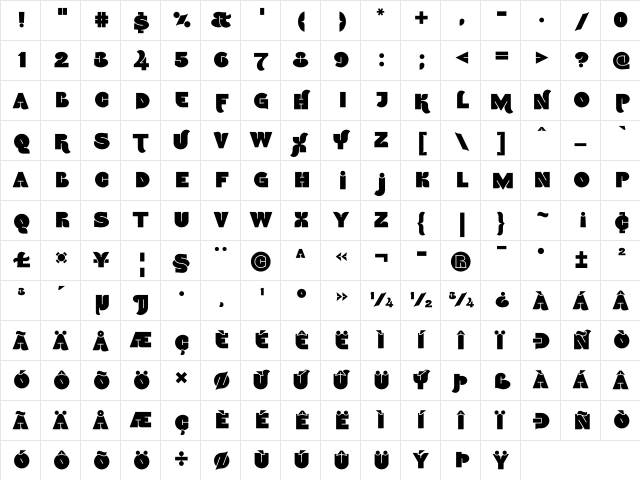
NamskoutIn Medium
| Foundry | gluk |
| Designer | gluk |
Design Context for NamskoutIn Typeface
NamskoutIn is a composed and adaptable typeface that performs quietly and consistently across a wide range of design contexts.